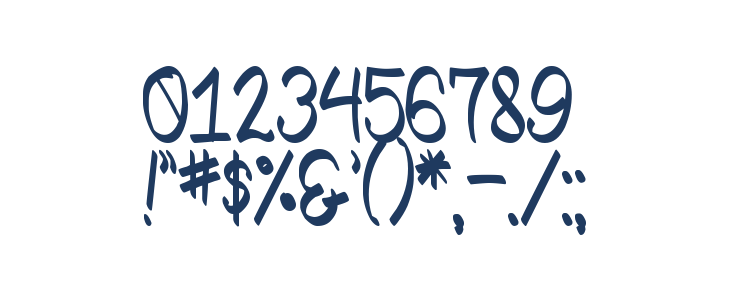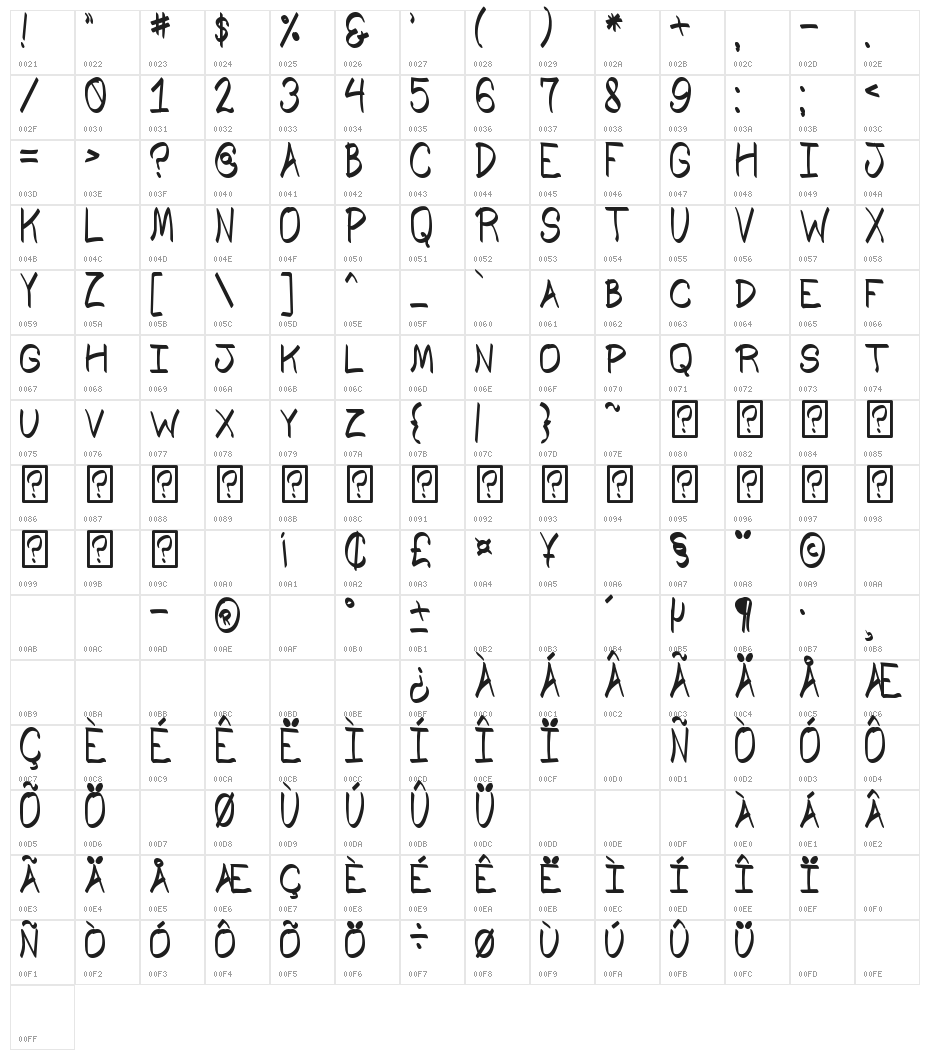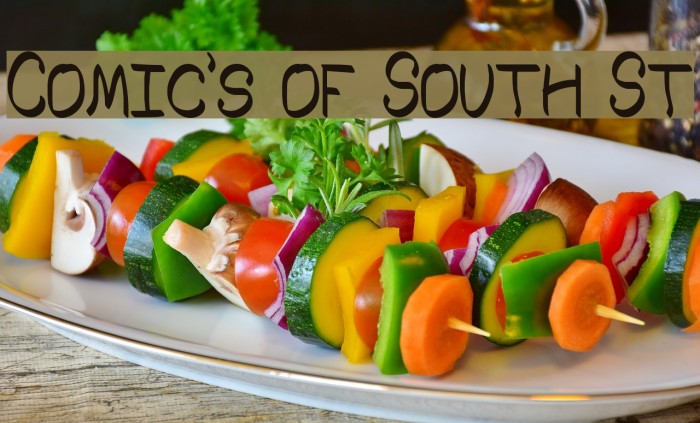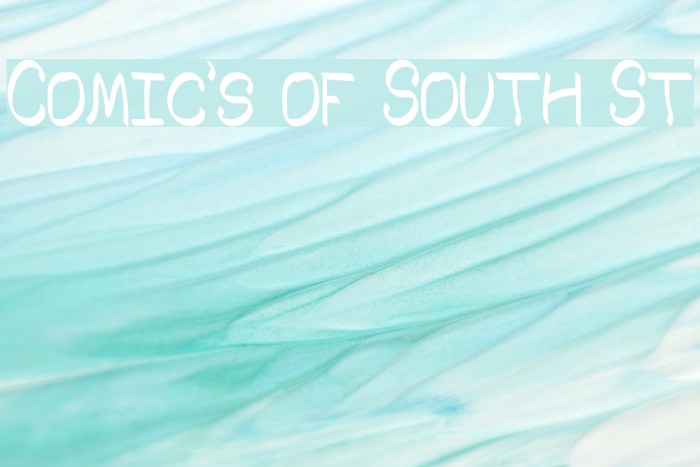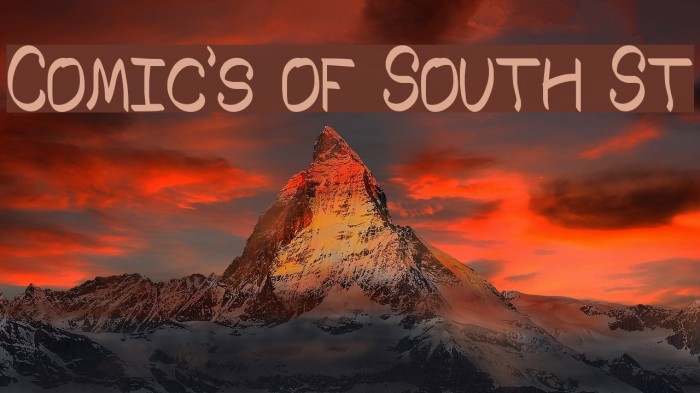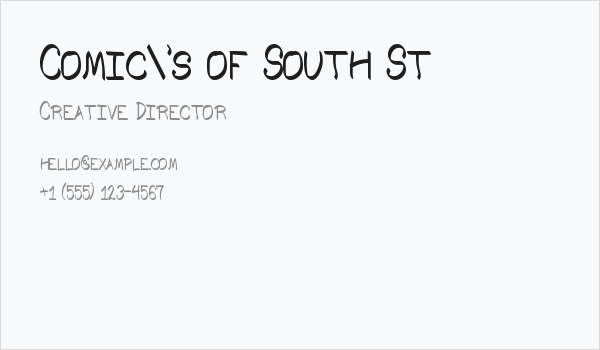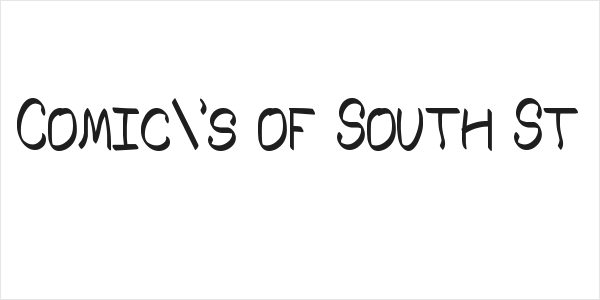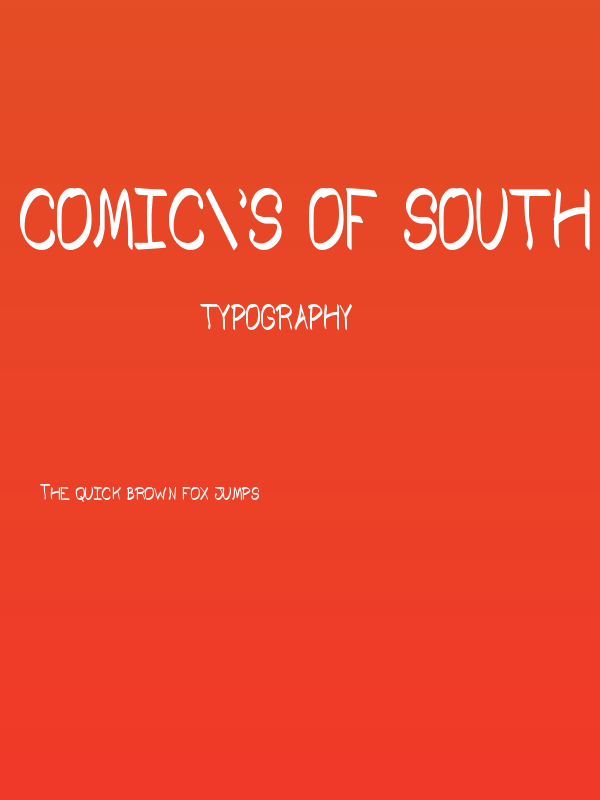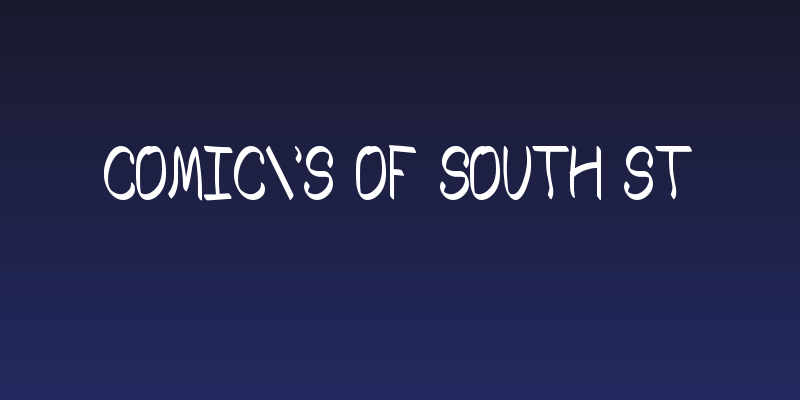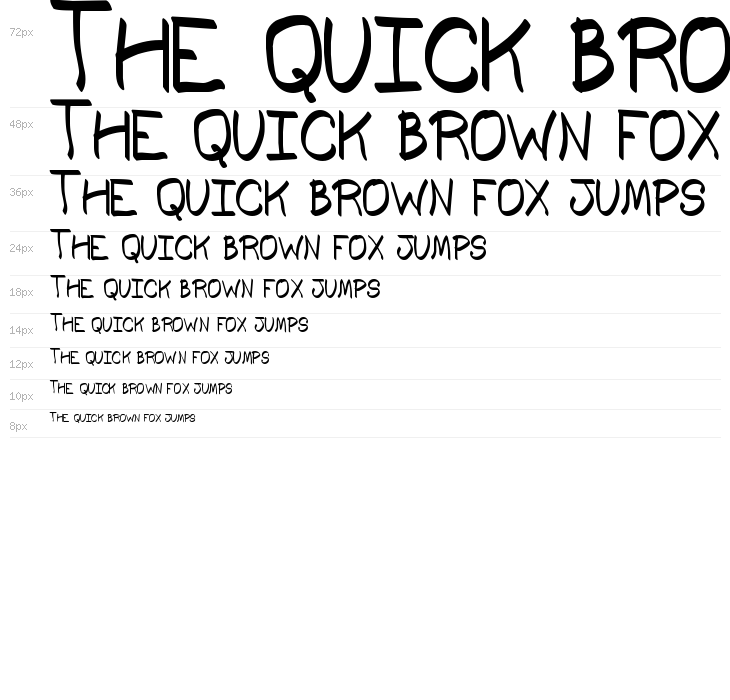
Comic's of South St Font
Comic's of South St Description
This playful and expressive font features a hand-drawn style with irregular strokes, giving it a casual and informal appearance. The letters are bold and slightly uneven, with a whimsical charm that adds personality to any text. The uppercase and lowercase characters maintain a consistent style, with rounded edges and varying line thicknesses that create a dynamic look. The numbers and special characters follow the same playful design, making the font versatile for various uses. Its unique style is reminiscent of comic book lettering, making it ideal for projects that require a fun and approachable aesthetic.
| Overall Style | Playful, Casual, Comic |
| Proposed Projects | Ideal for comic books, children's books, playful branding, and casual invitations. |